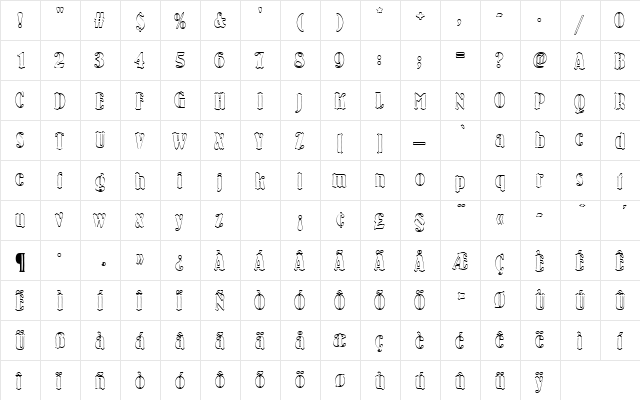
BernhardAntDBolConOu1 Regular Font Preview
BernhardAntDBolConOu1 Regular
BernhardAntDBolConOu1 Regular Font Details
Design Context for BernhardAntDBolConOu1 Typeface
BernhardAntDBolConOu1 takes a measured approach to typography — its balanced proportions and neutral character make it a reliable workhorse for both digital and print work.